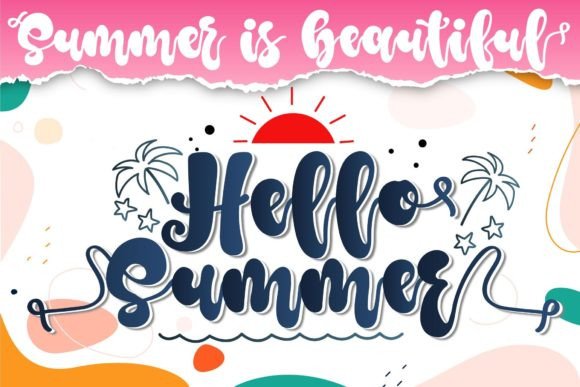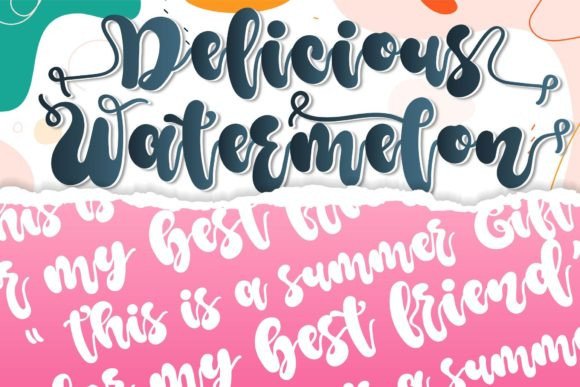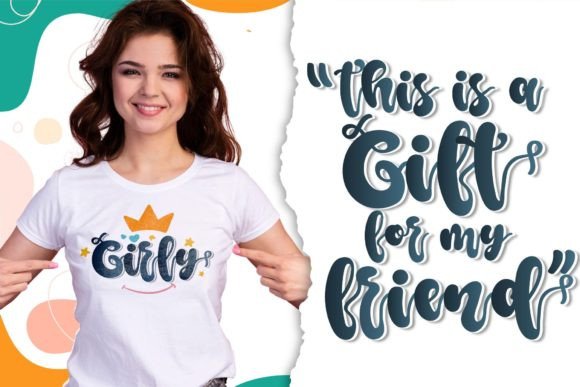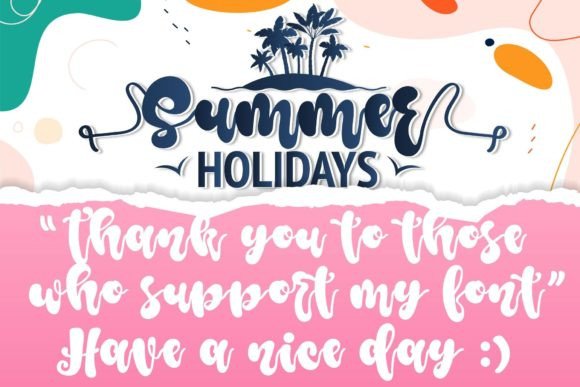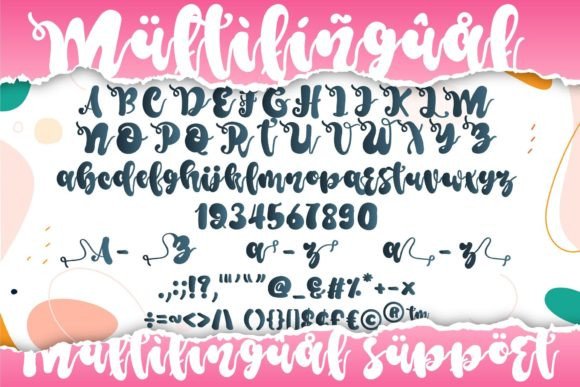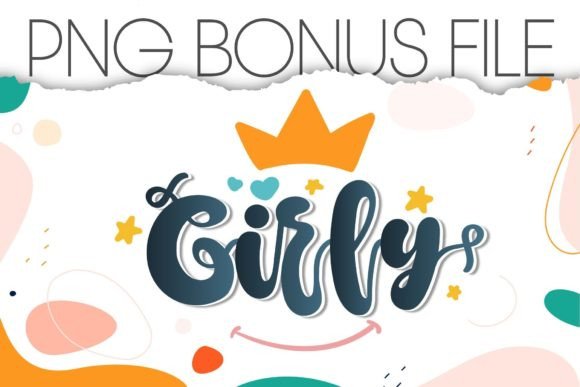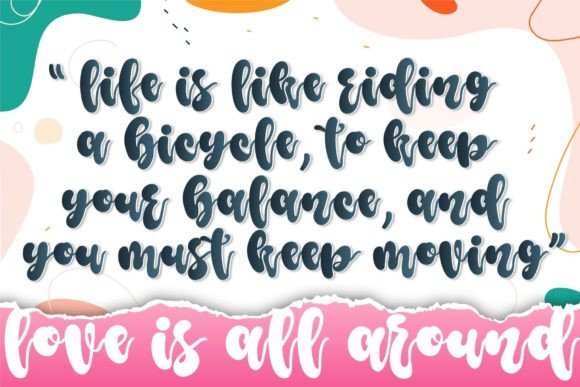
Girly Font
About Girly Font
“Girly” is a lovely and timeless handwritten font, making it the perfect choice for creating eye-catching logos, branding, and quotes. Each letter in this font has a unique and beautiful touch, adding a distinctive charm to your design and bringing it to life.
The versatility of “Girly” shines through, making it suitable for a variety of design applications. Whether you’re working on a logo that requires a touch of elegance, crafting a brand identity, or creating visually appealing quotes, this font is designed to enhance the overall aesthetic of your projects.
One notable feature of “Girly” is its PUA encoding, allowing easy access to all the glyphs and swashes. This feature enhances the user experience, enabling effortless customization and making it convenient for you to add unique elements to your designs.
The timeless handwritten style of “Girly” adds a personal and authentic feel to your text, making it visually engaging. Its elegance and uniqueness make it stand out, ensuring that your designs leave a lasting impression on your audience.
In summary, “Girly” is more than just a font; it’s a design tool that brings a lovely and timeless handwritten style to your creative projects. Embrace its beauty and uniqueness to create eye-catching logos, memorable branding, and captivating quotes that resonate with your audience.